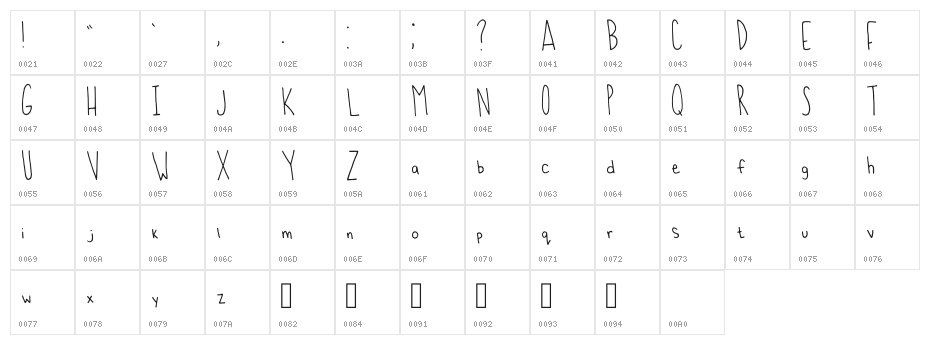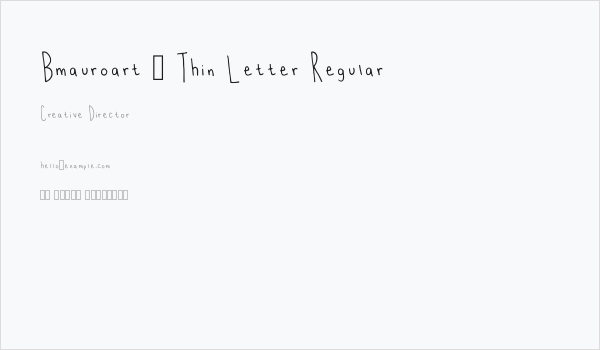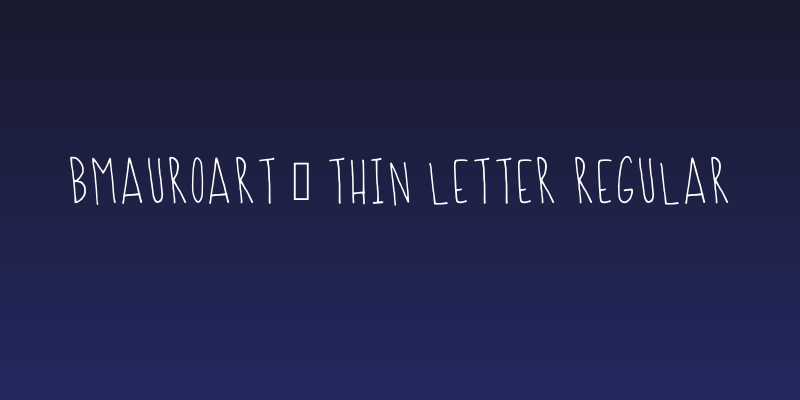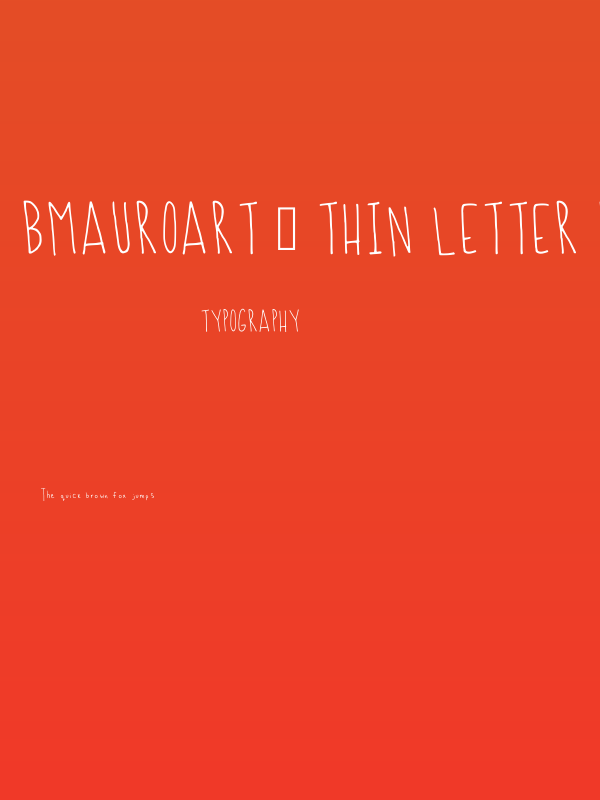
Bmauroart _ Thin Letter Regular Font
Bmauroart _ Thin Letter Regular Description
A playful, handwritten style font with irregular, casual letterforms that resemble a child's handwriting.
| Overall Style | Playful, Casual, Childlike |
| Use Case | Children's books, casual invitations, playful branding, educational materials. |